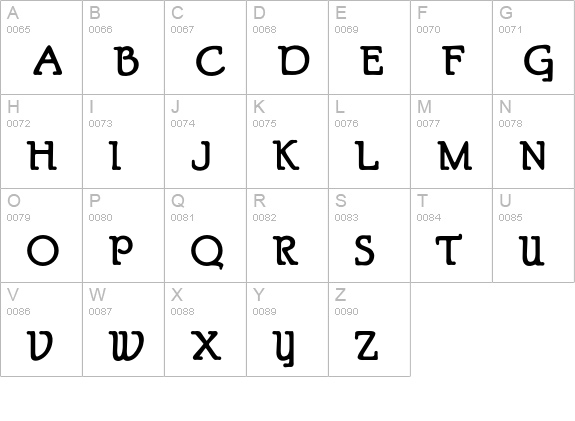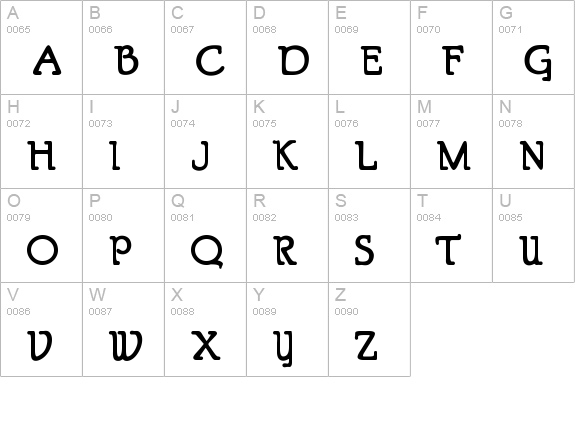
Mormone Font Details
Mormone font is a stunning display typeface that exudes elegance and sophistication. With its graceful curves and stylish letterforms, this font is sure to add a touch of class to any design project. Whether you're working on a wedding invitation, a branding project, or a poster design, Mormone font will elevate your work to the next level. The best part? Mormone font is completely free to download at FontsMarket.com. That's right, you can access this exquisite typeface without spending a dime. Simply head over to FontsMarket.com and start using Mormone font in your designs today. Don't miss out on this incredible opportunity to enhance your projects with a beautiful and versatile font that is just a click away.